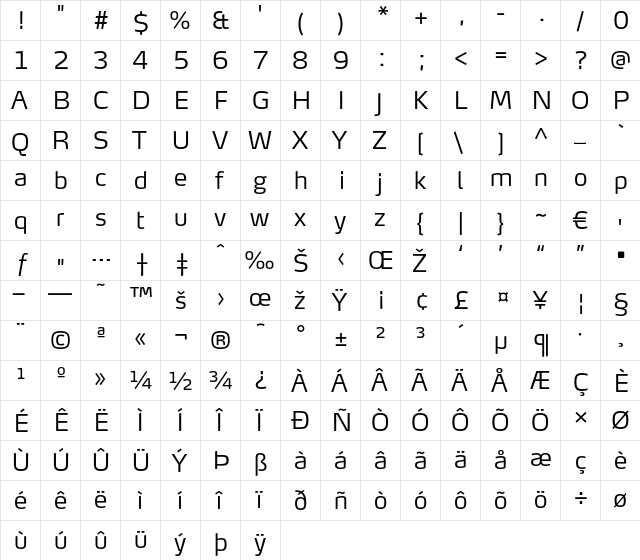
MaxTF-Light Regular
Design Context for MaxTF-Light Typeface
MaxTF-Light takes a measured approach to typography — its balanced proportions and neutral character make it a reliable workhorse for both digital and print work. The delicate stroke weight brings airiness and refinement to layouts.